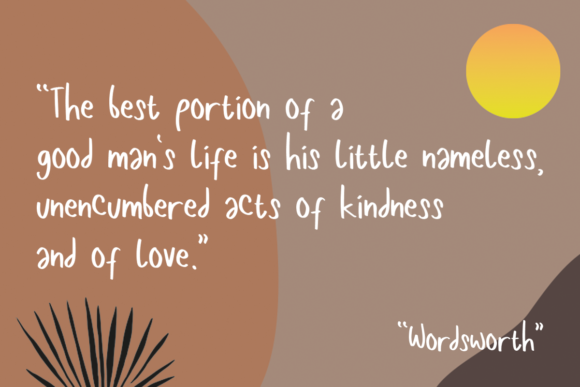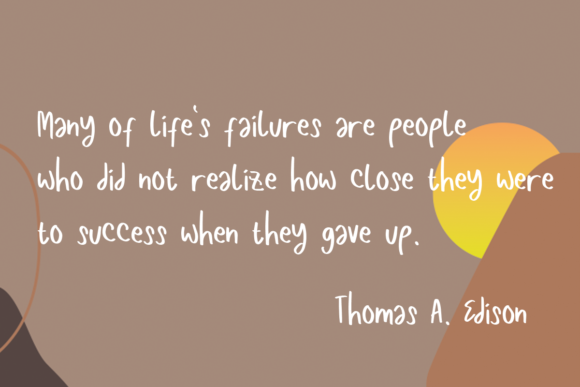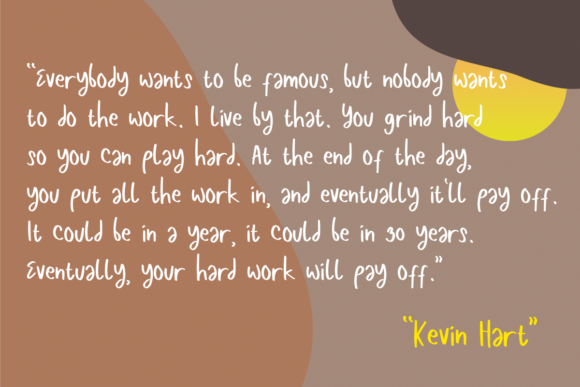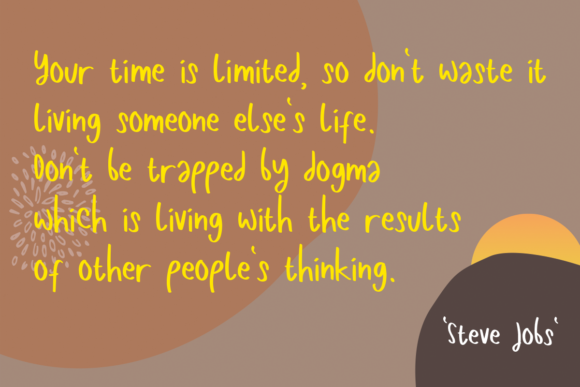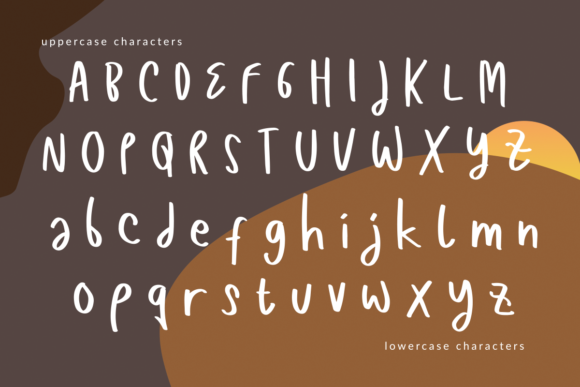
The Perfect Font to Elevate Your Design Game
As designers, we’ve all been there – staring at a blank canvas, trying to find the perfect font to bring our vision to life. It’s that moment of inspiration, when everything clicks into place and you know exactly what you need to make your design shine. And that’s exactly what the Candidasa Font does – it brings a modern touch to your designs, making them stand out in a crowd.
Candidasa Font is a clean and versatile display font, designed to add a neat and elegant vibe to any design project. Whether you’re working on a branding campaign, creating a website, or designing a social media post, this font is the perfect addition to take your design to the next level. With its endless variations, you’ll have fun experimenting and finding the perfect fit for your project.
Candidasa Font Key Features
- Font Size: The font comes in 8 different weights, ranging from Thin to Black, providing flexibility for designers to choose the perfect size for their projects.
- Language Support: The font supports multiple languages, including Latin, Cyrillic, and Greek scripts, making it a versatile choice for global design projects.
- Unique Characteristics: Candidasa Font features a unique blend of modern and traditional elements, with intricate details and subtle nuances that set it apart from other fonts.
- Scalability: The font is designed to be highly scalable, ensuring that it remains legible and visually appealing across various screen sizes and resolutions.
Candidasa Font Review
I recently had the chance to work with the Candidasa Font, and I must say it’s a unique and intriguing typeface. Here are my honest thoughts:
The font’s organic and hand-drawn feel is lovely. It adds a touch of warmth and personality to any design project.
The Candidasa Font is highly customizable, with a wide range of weights, styles, and sizes available. This makes it perfect for both digital and print projects.
The font is also incredibly versatile, suitable for a wide range of industries and applications, from branding to publishing.
The font’s irregularities and imperfections may not be suitable for projects that require a high level of precision and consistency.
The font may not be as readable in smaller sizes or at a distance, which could be a concern for certain applications.
Overall, I think the Candidasa Font is a great addition to any designer’s toolkit. While it may have some limitations, its unique character and versatility make it a valuable resource for creative projects. With the right use case, this font can truly shine and add a special touch to your designs.
Candidasa Font Practical Application Guide
Tips for using Candidasa Font in Canva: Use it for headings and titles to add a touch of elegance to your design. Experiment with different font sizes and colors to create visual interest.
Tips for using Candidasa Font in Adobe Photoshop or Illustrator: Use it for logos, typography, and other design elements that require a touch of sophistication.
Tips for using Candidasa Font in PowerPoint or Word: Use it for headings, titles, and other text elements that require a touch of elegance.
Candidasa Font is ideal for:
- Brand logos and typography
- High-end business cards and marketing materials
Remember to always use the font in a way that complements your design and message.
Alternatives to Candidasa Font
Lato is a modern sans-serif font that is highly legible and versatile. It’s perfect for use in digital media, such as websites, apps, and social media platforms. Lato is a great alternative to Candidasa Font because it has a similar clean and minimalist aesthetic, but with a more modern and sleek feel.
Montserrat is a geometric sans-serif font that was inspired by the streets of Buenos Aires. It’s a great choice for use in urban and industrial settings, and its bold and modern feel makes it perfect for use in headlines and titles. Montserrat is a good alternative to Candidasa Font because it has a similar urban feel, but with a more edgy and modern aesthetic.